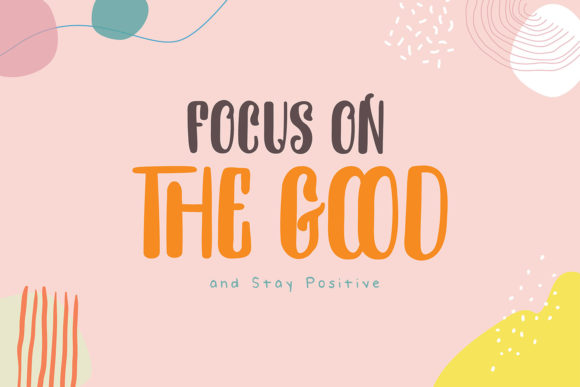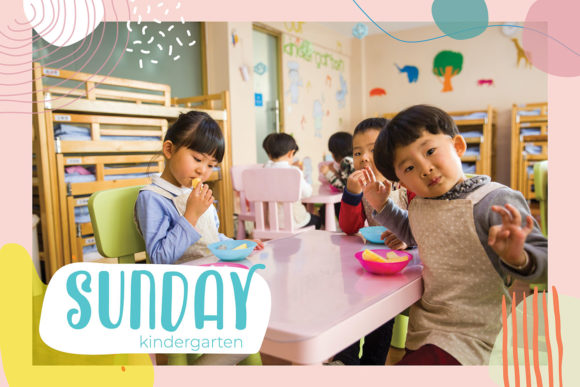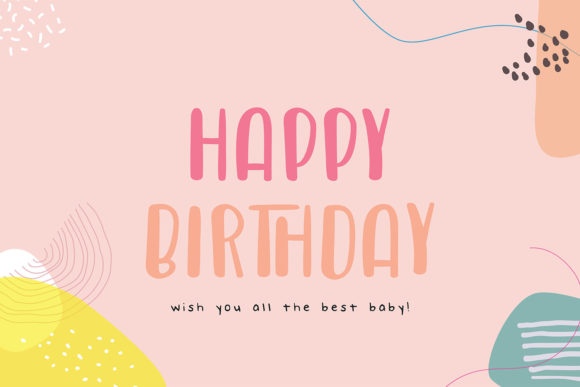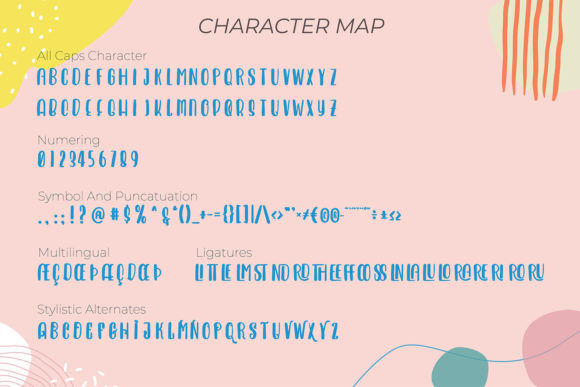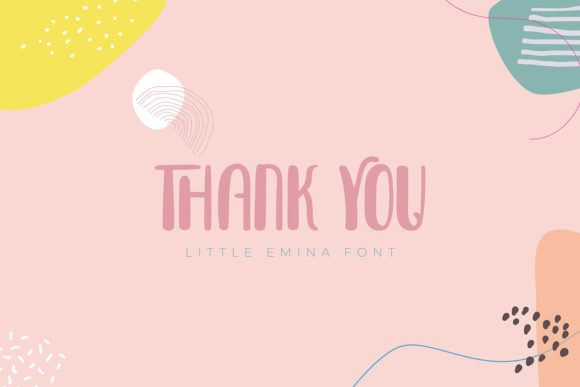
Introduction to Little Elmina Font
Remember the moment when you stumbled upon the perfect font for your creative project? It’s that instant rush of excitement and satisfaction, knowing that your design just came together. For designers and crafty individuals, finding the right font can be a game-changer. And today, we’re excited to introduce you to the Little Elmina Font, a delightful display font that’s sure to bring a smile to your face.
This charming, cartoon-like font is a high-quality design resource that’s perfect for a wide range of creative projects. From letterheads and titles to stationery, Little Elmina Font is an ideal choice for those who want to add a touch of whimsy and personality to their work. With its transparent background, it’s easy to layer and combine with other design elements to create a unique and eye-catching visual identity.
Key Features of Little Elmina Font
- Includes 1 font style with 6 weights (Thin, Light, Regular, Medium, Bold, Black)
- Unique, elegant design perfect for adding a touch of sophistication to any creative project
Honest Review: Little Elmina Font
I recently had the chance to work with the Little Elmina Font, and I’m excited to share my thoughts on this design resource. Overall, I was impressed with its high quality and versatility.
- ✨ Beautiful, elegant design that’s perfect for creative projects
- ⚠️ Limited character set, which may not be ideal for lengthy text-based projects
Overall, I was pleased with the Little Elmina Font’s performance in my design project. While it may have some limitations, its high quality and elegant design make it a great choice for creative projects where a touch of sophistication is needed. If you’re looking for a free design resource with a lot of character, the Little Elmina Font is definitely worth checking out.
Tips for Getting the Most Out of Little Elmina Font
Experiment with different font sizes and colors to create a visually appealing design. Use the font in combination with other design elements to add depth and texture.
The Little Elmina Font is ideal for various creative projects, including:
- Branding